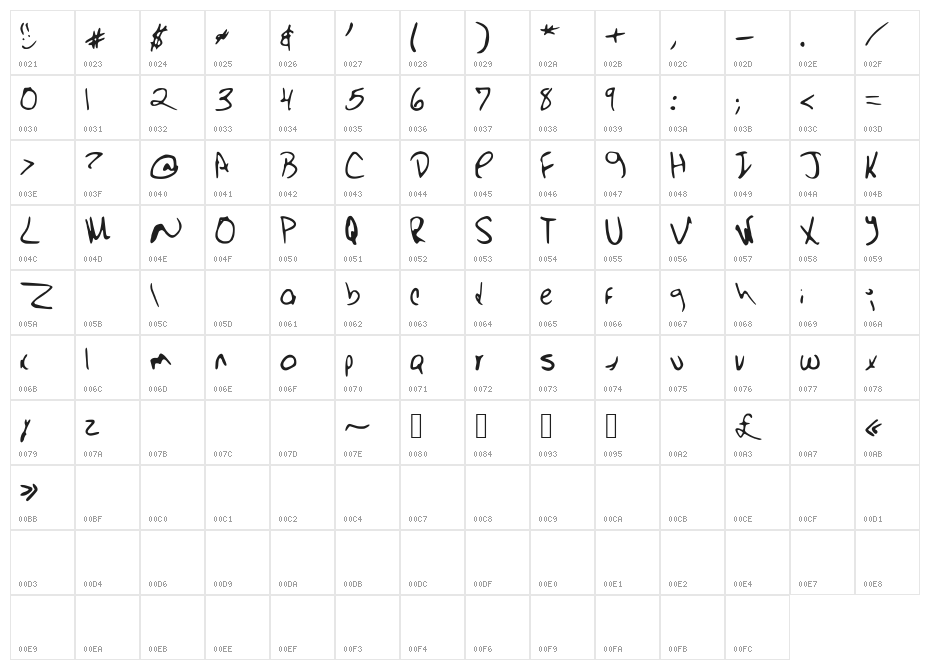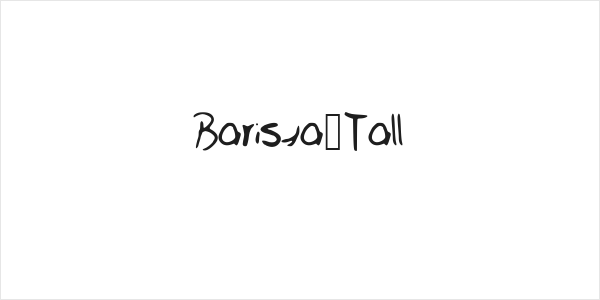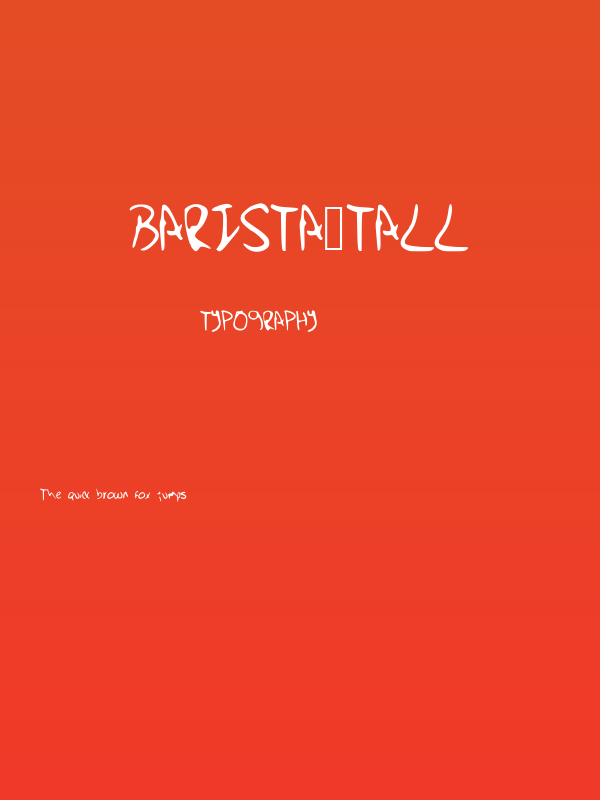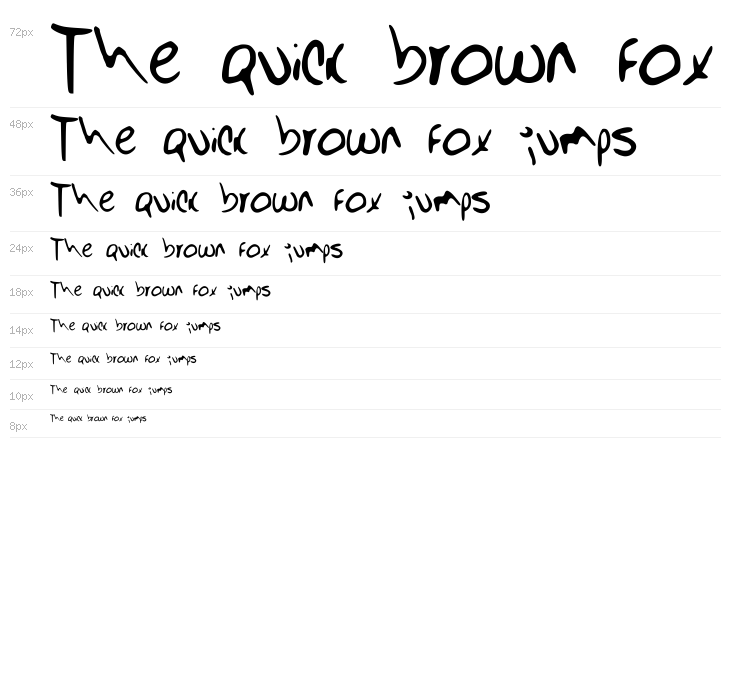
Barista_Tall Font
Barista_Tall Description
This font exhibits a playful and dynamic handwritten style, characterized by its fluid and irregular strokes. The letters are crafted with a casual flair, giving them a lively and spontaneous appearance. The uppercase and lowercase letters maintain a consistent style, with some characters featuring unique loops and curves that add to the font's charm. The numbers and special characters follow the same energetic design, making them stand out. This font is perfect for projects that require a personal touch or a creative, informal vibe.
| Overall Style | Casual, Creative |
| Proposed Projects | Ideal for greeting cards, personal branding, creative posters, and informal invitations. |